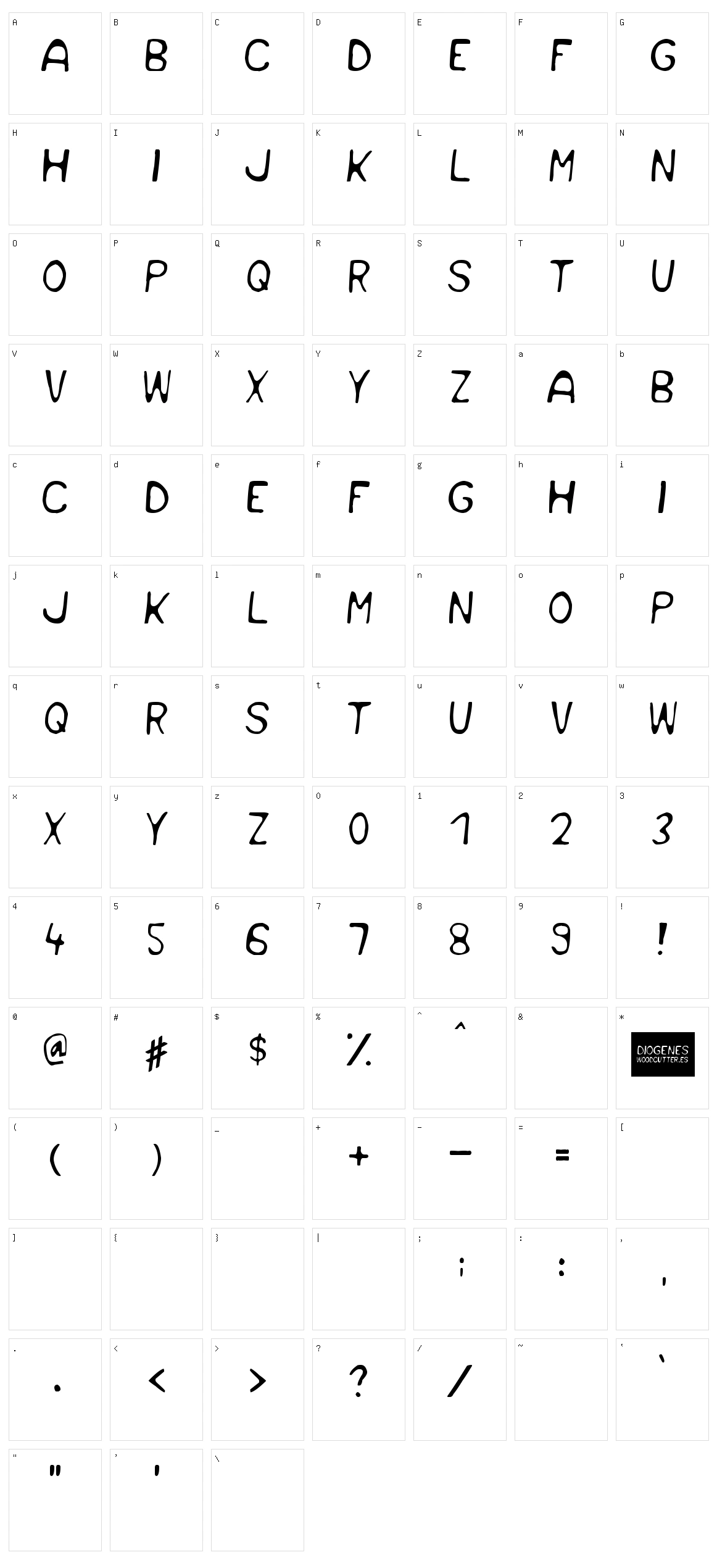
The free font Diogenes is carefully designed by Woodcutter, showcasing a thoughtful balance of creativity and usability and falls under the Script font style. When you download the ZIP file, it contains only 11.05 KB of font files, making it lightweight and quick to download. Please review the license details below to understand permitted usage and distribution rights. If license information is not available, we recommend using this font for personal projects only or contacting the author directly for commercial usage permissions.